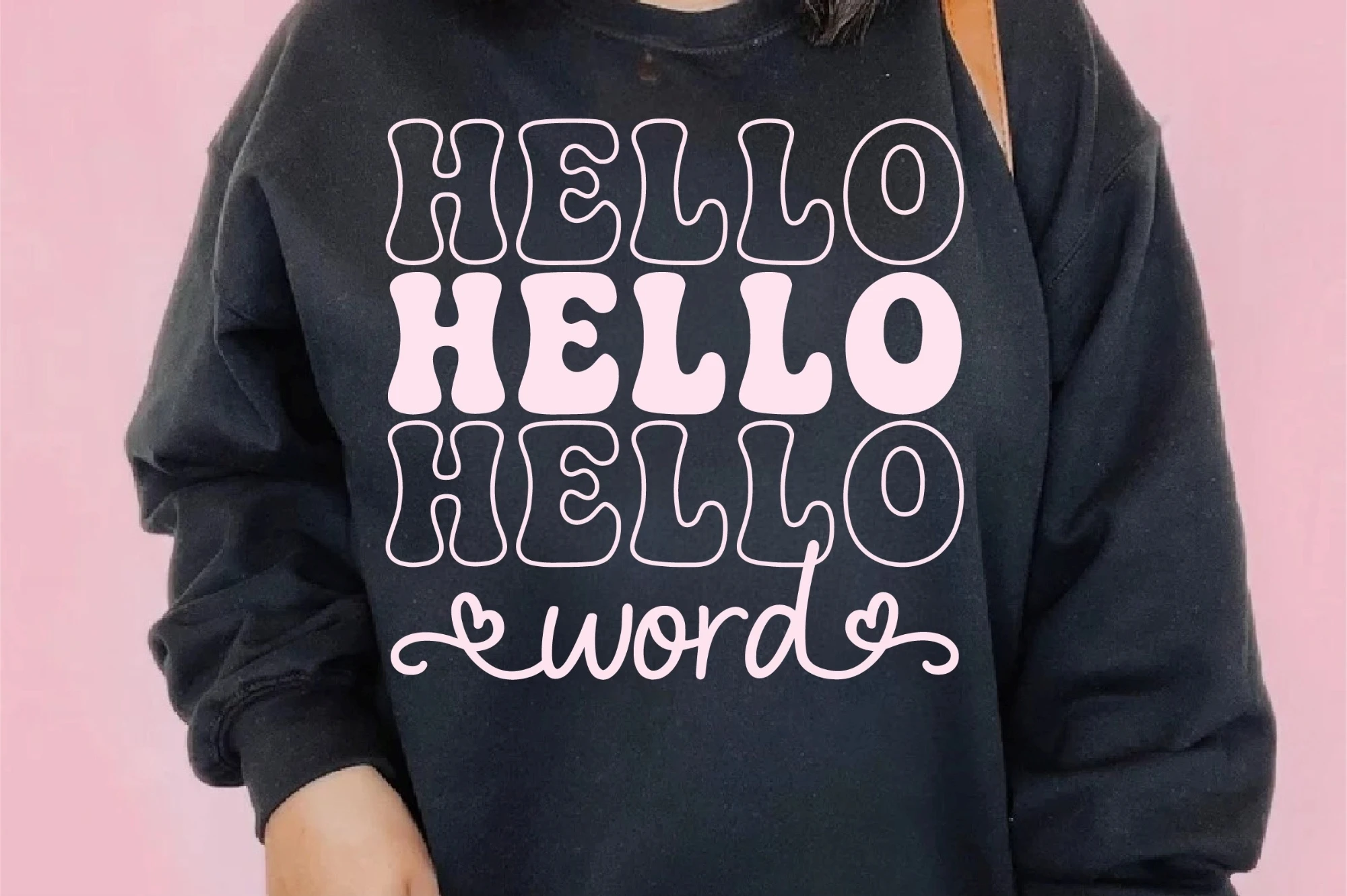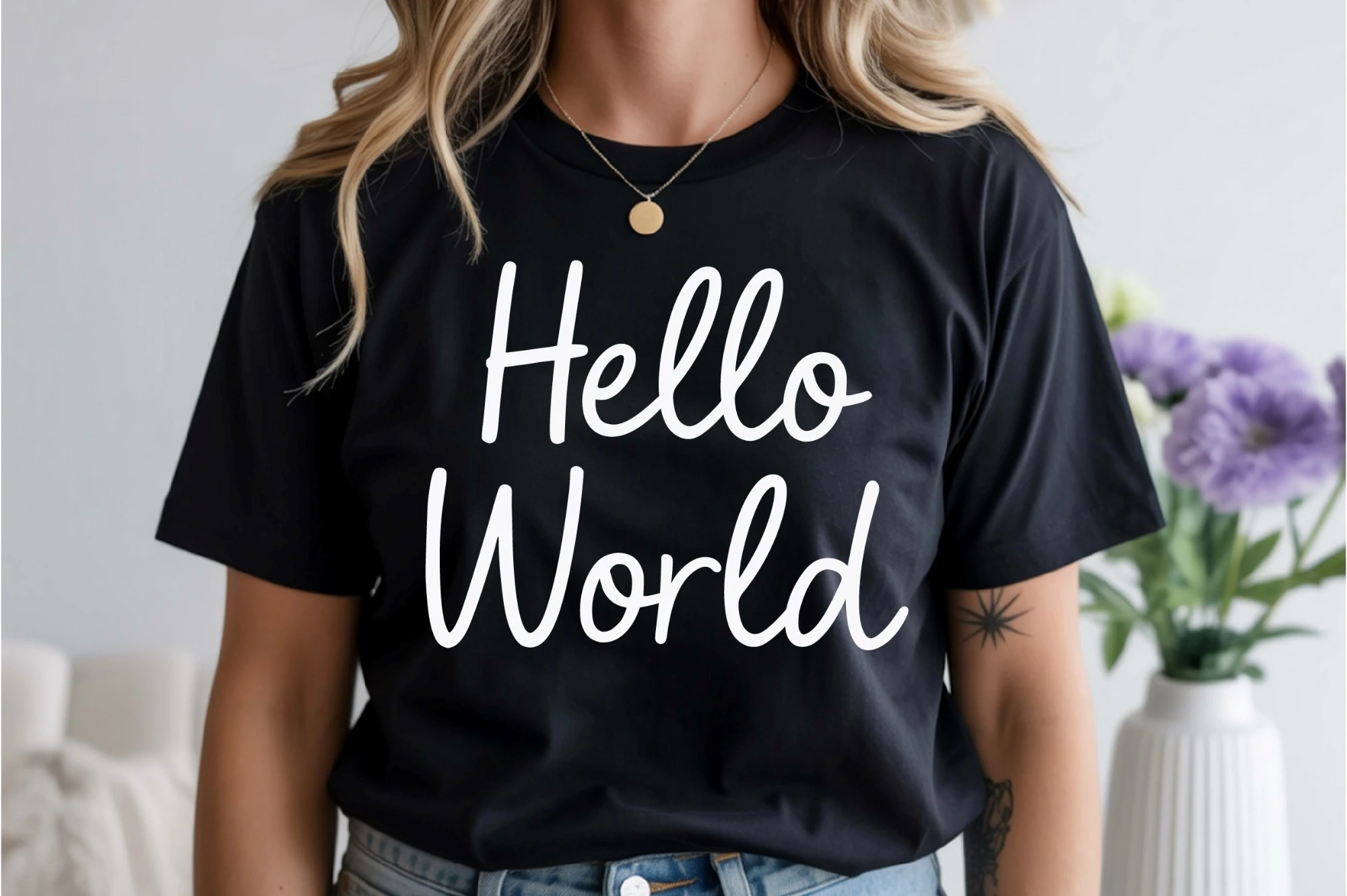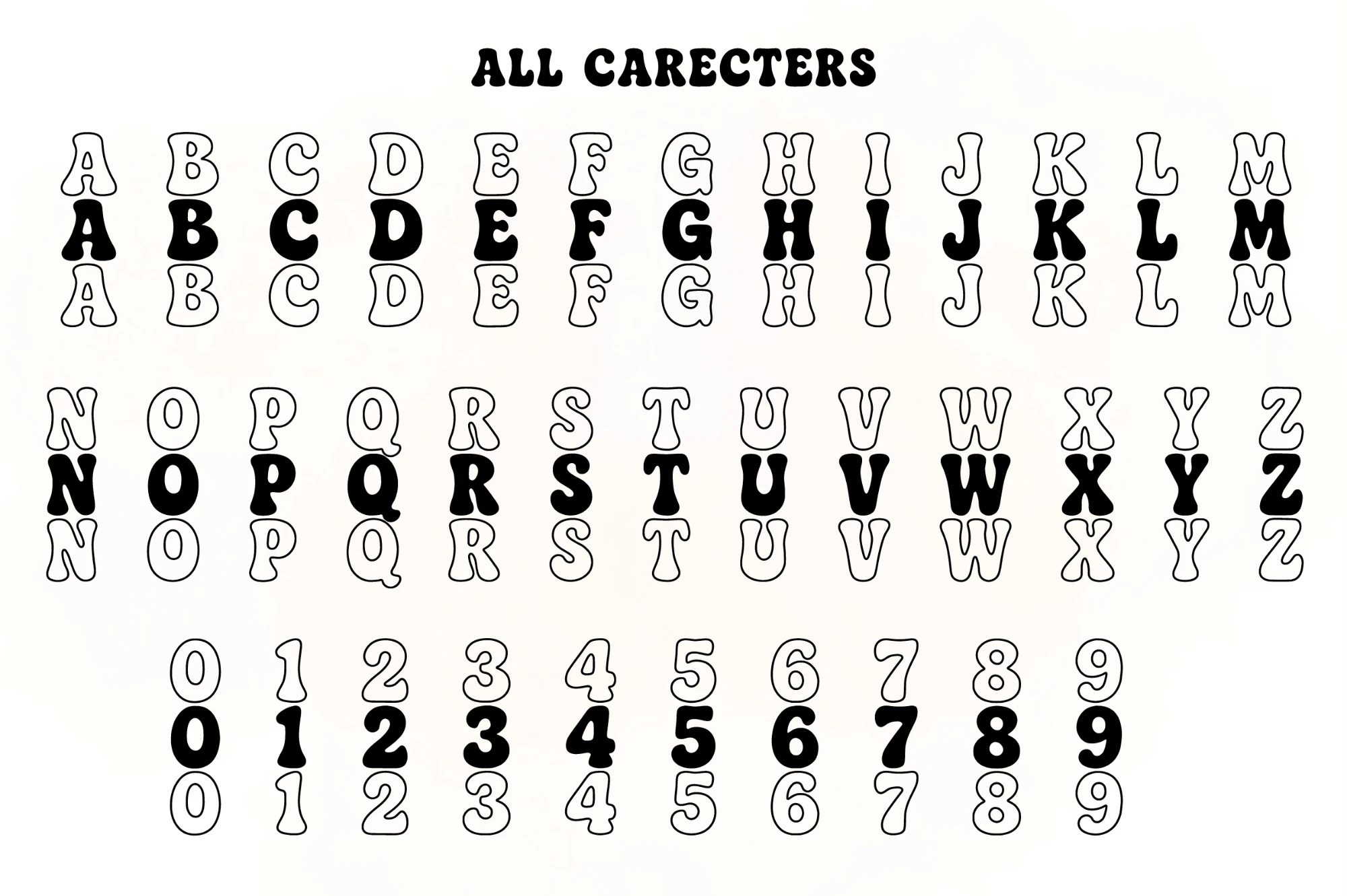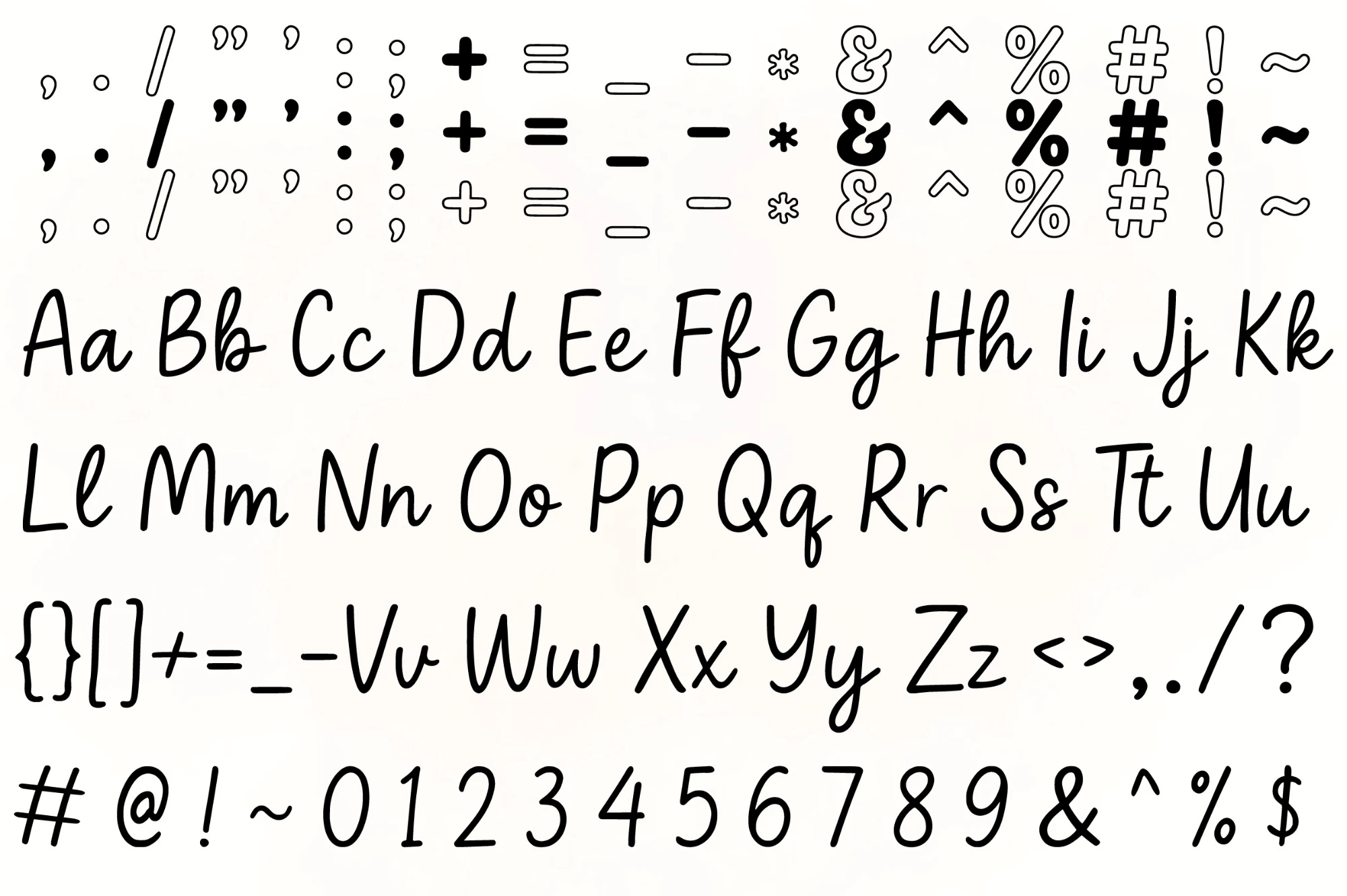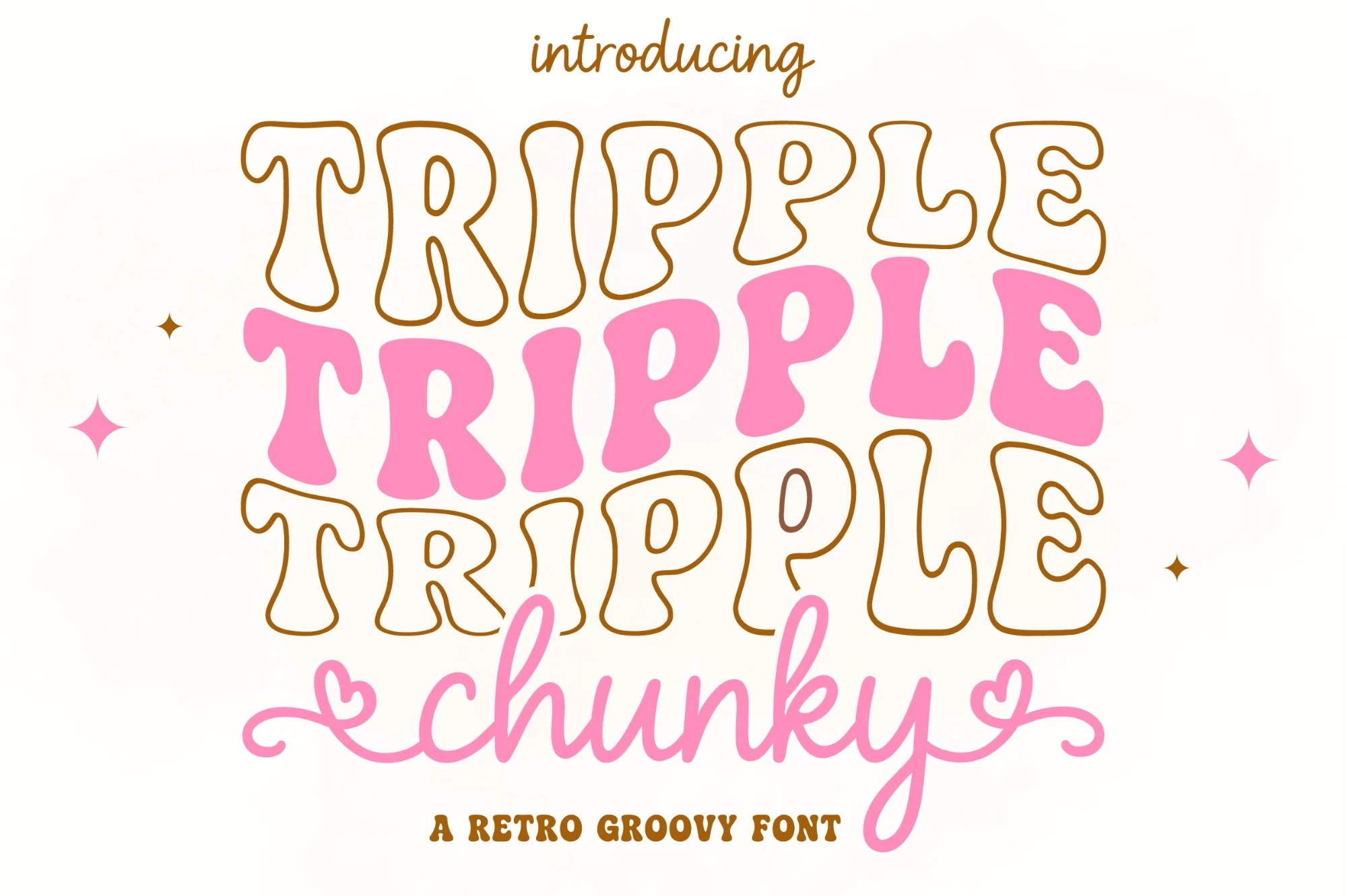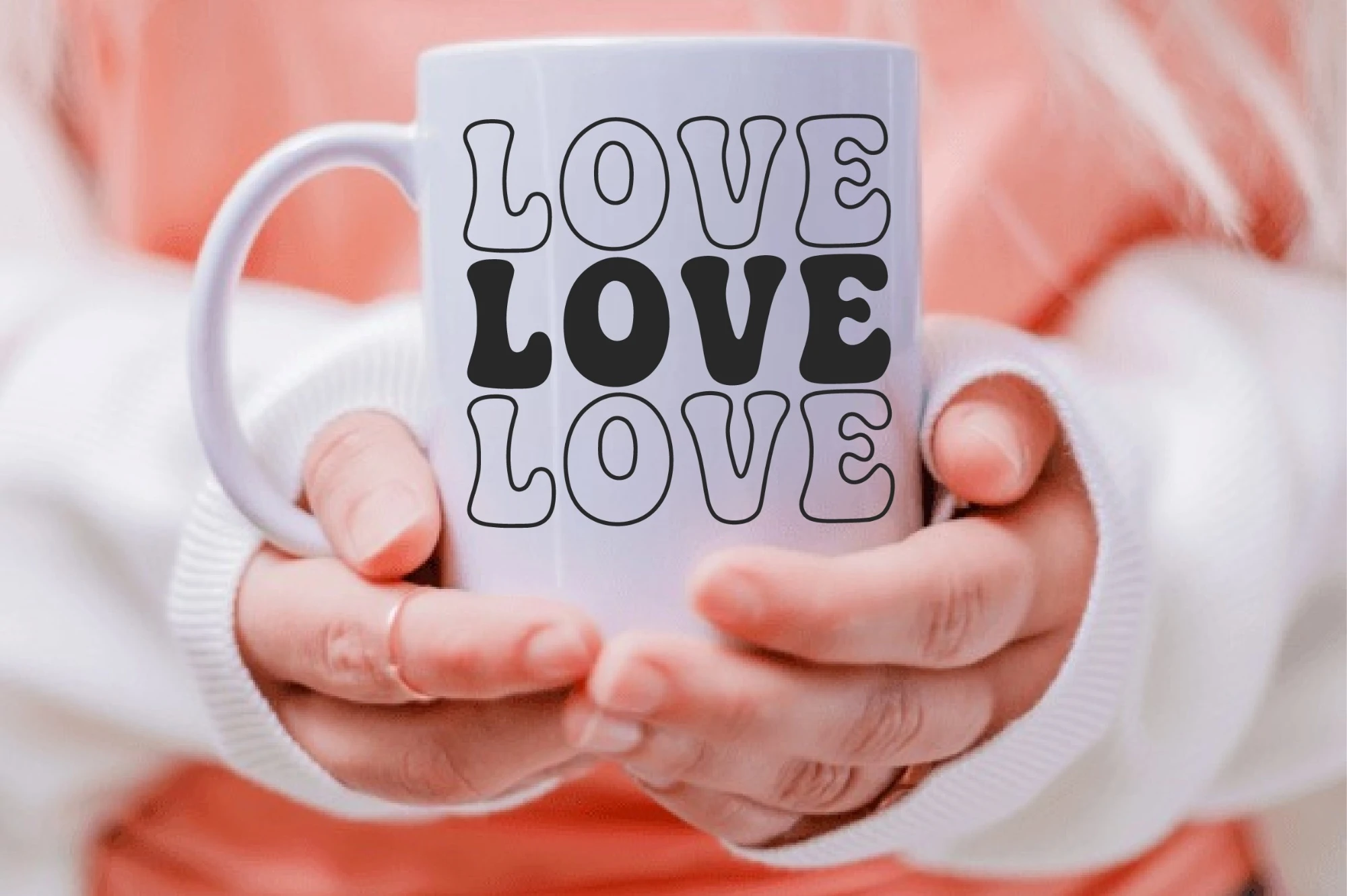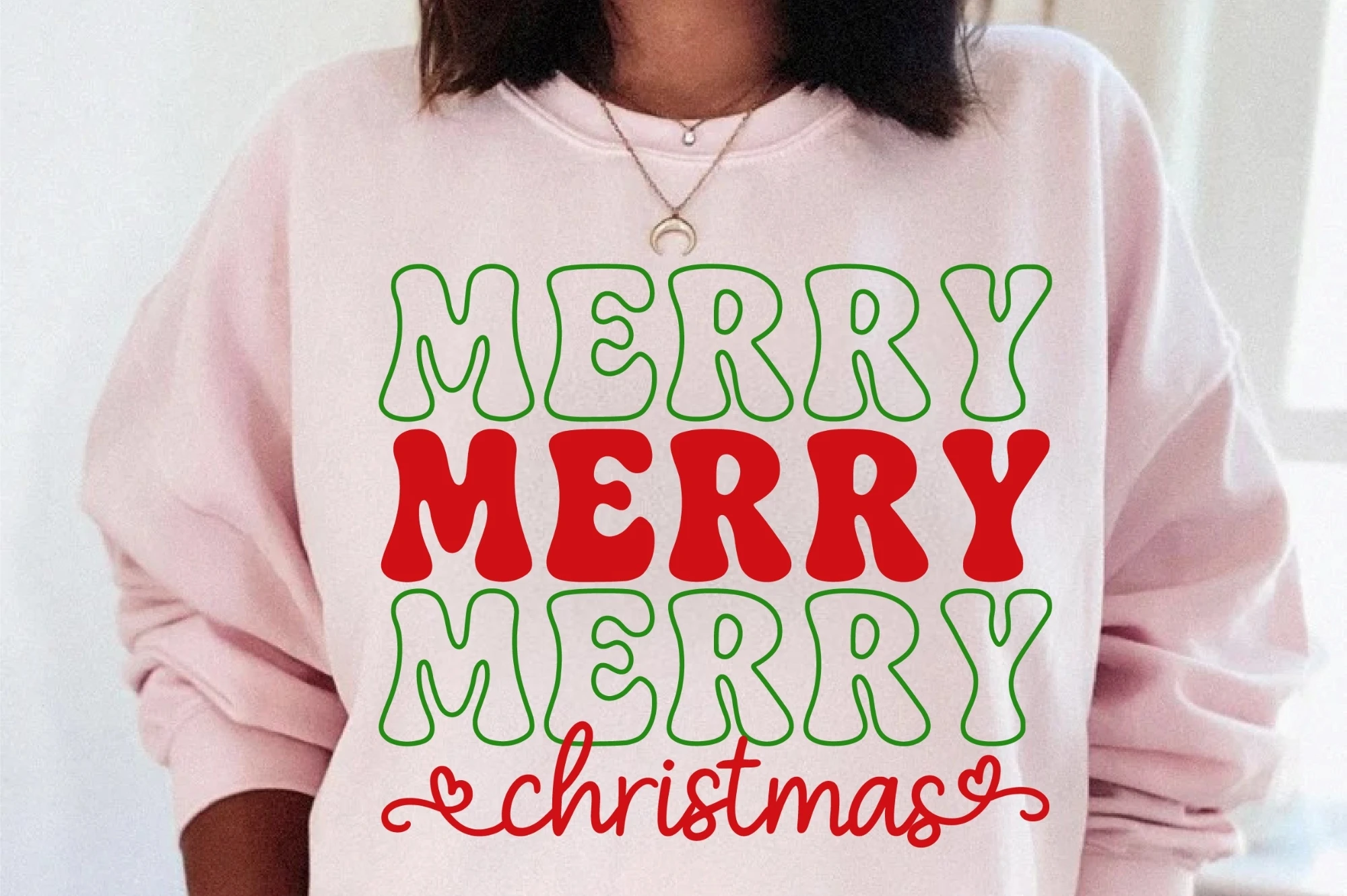
Bring a fun, bold, and playful touch to your projects with this adorable font duo.
The Tripple Chunky Duo Font features stacked bubbly, puffy letters with a cute outline style, while Chunky Heart adds a sweet handwritten script with lovely heart swashes. Together, they create the perfect pairing for any creative design!
This duo is ideal for t-shirt designs, quotes, stickers, kids designs, greeting cards, craft projects, sublimation, and branding that needs a soft, cheerful, and charming look. These two fonts complement each other beautifully and add a warm, friendly personality to any artwork.
Make your creative ideas stand out with this delightful chunky + script combination!
The Tripple Chunky Duo Font features stacked bubbly, puffy letters with a cute outline style, while Chunky Heart adds a sweet handwritten script with lovely heart swashes. Together, they create the perfect pairing for any creative design!
This duo is ideal for t-shirt designs, quotes, stickers, kids designs, greeting cards, craft projects, sublimation, and branding that needs a soft, cheerful, and charming look. These two fonts complement each other beautifully and add a warm, friendly personality to any artwork.
Make your creative ideas stand out with this delightful chunky + script combination!